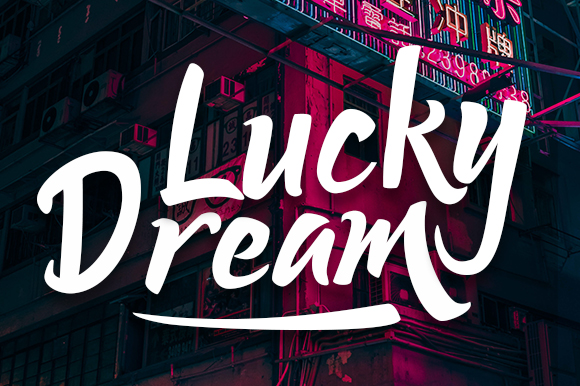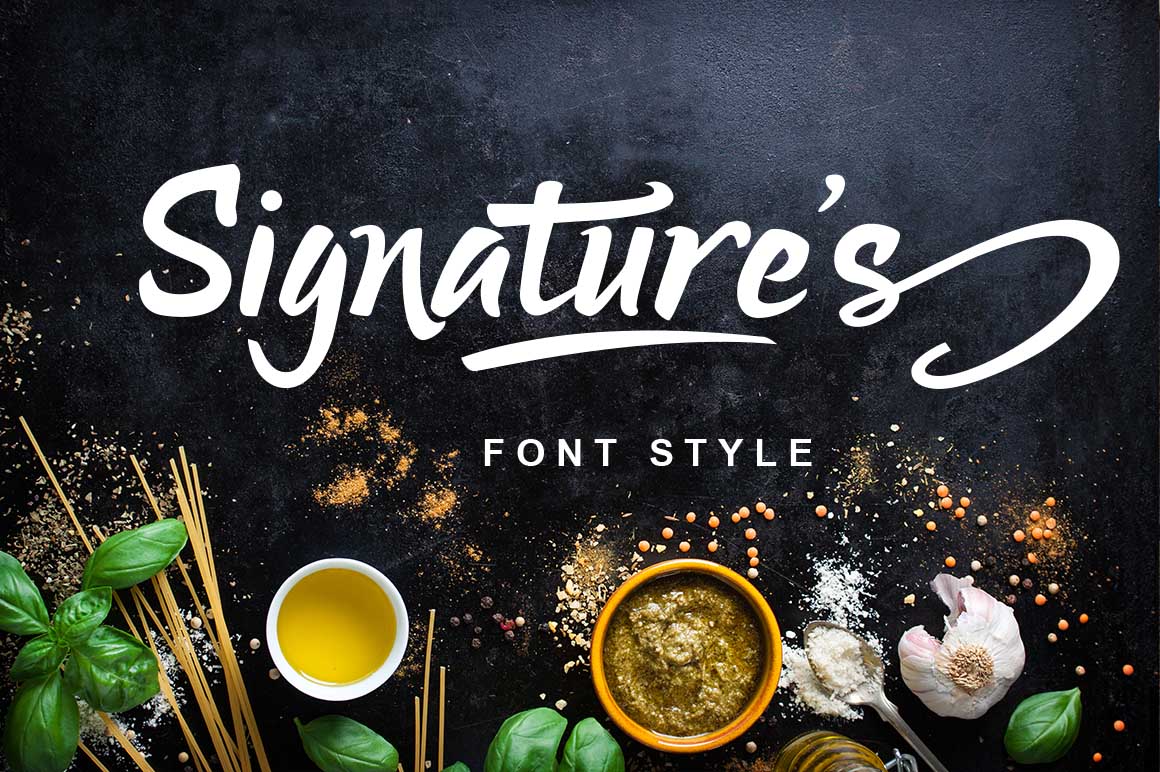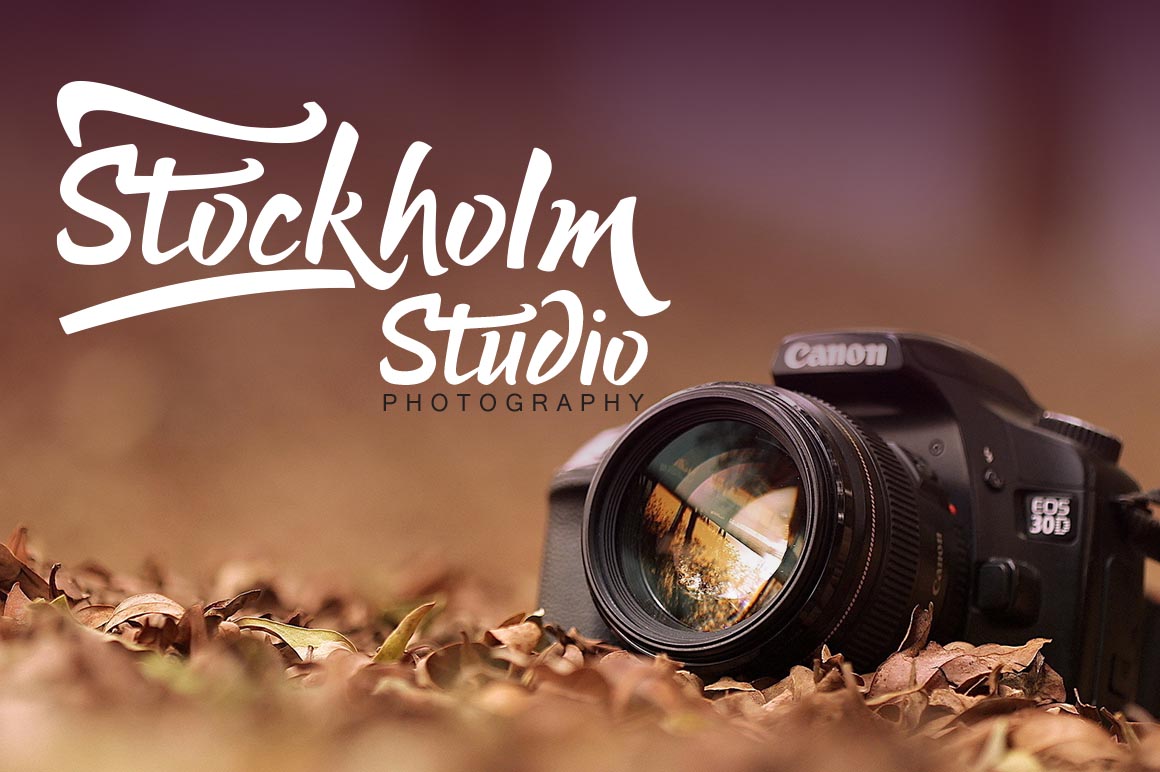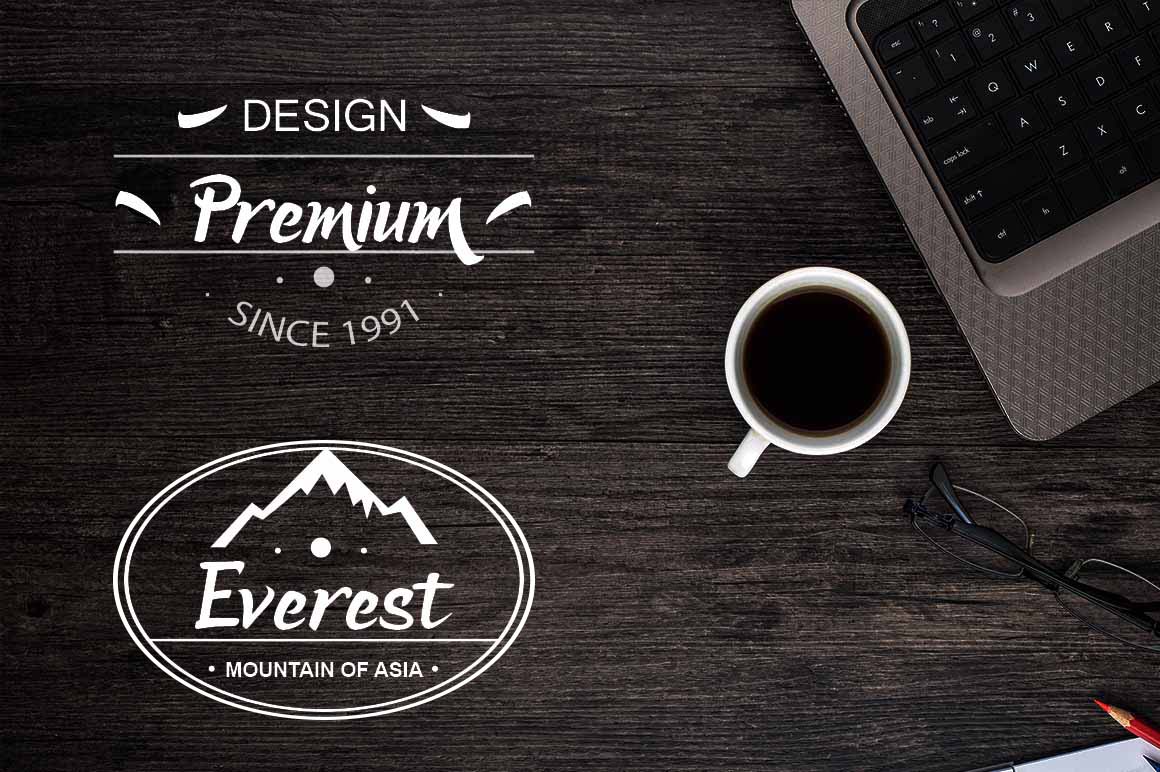
About Lucky Dream Bold Font
Lucky Dream Bold is a wonderfully diverse script font, one that works across almost any design type. This font looks great anchoring vintage styles, or amplifying the modernity of your projects; its weight and style makes it capable of taking on any style.